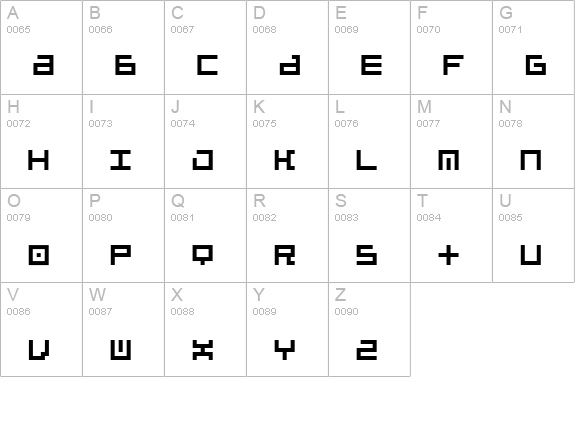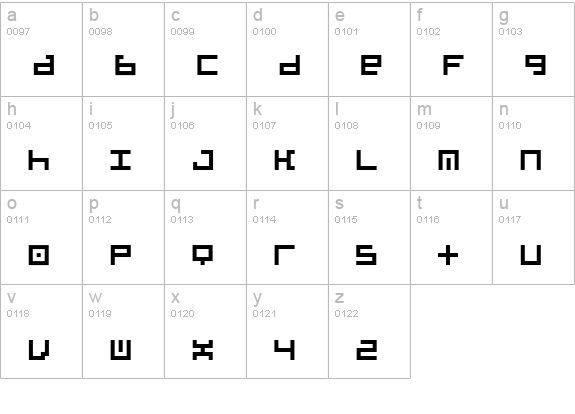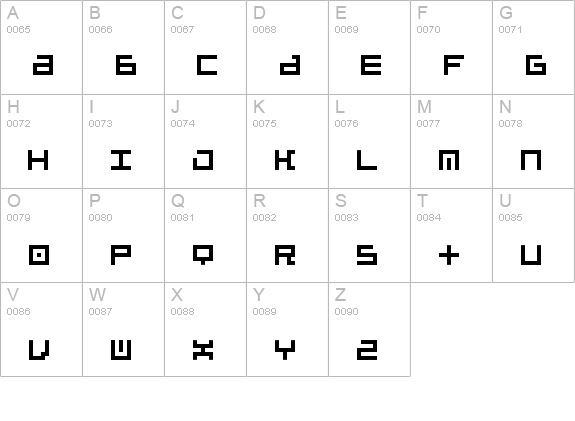
Beatbox Font Details
Beatbox font is a dynamic and playful typeface designed to bring rhythm and energy to your projects. With its bold and modern design, Beatbox is perfect for creating eye-catching headlines, posters, and branding materials. This versatile font captures the essence of urban culture and street art, making it ideal for projects that require a fresh and edgy look. Best of all, Beatbox font is completely free to download at FontsMarket.com. Whether you're a designer, artist, or hobbyist, you can easily access this stylish font to add a touch of creativity to your work. Don't miss out on the opportunity to enhance your designs with Beatbox font - download it today and let your creativity flow!